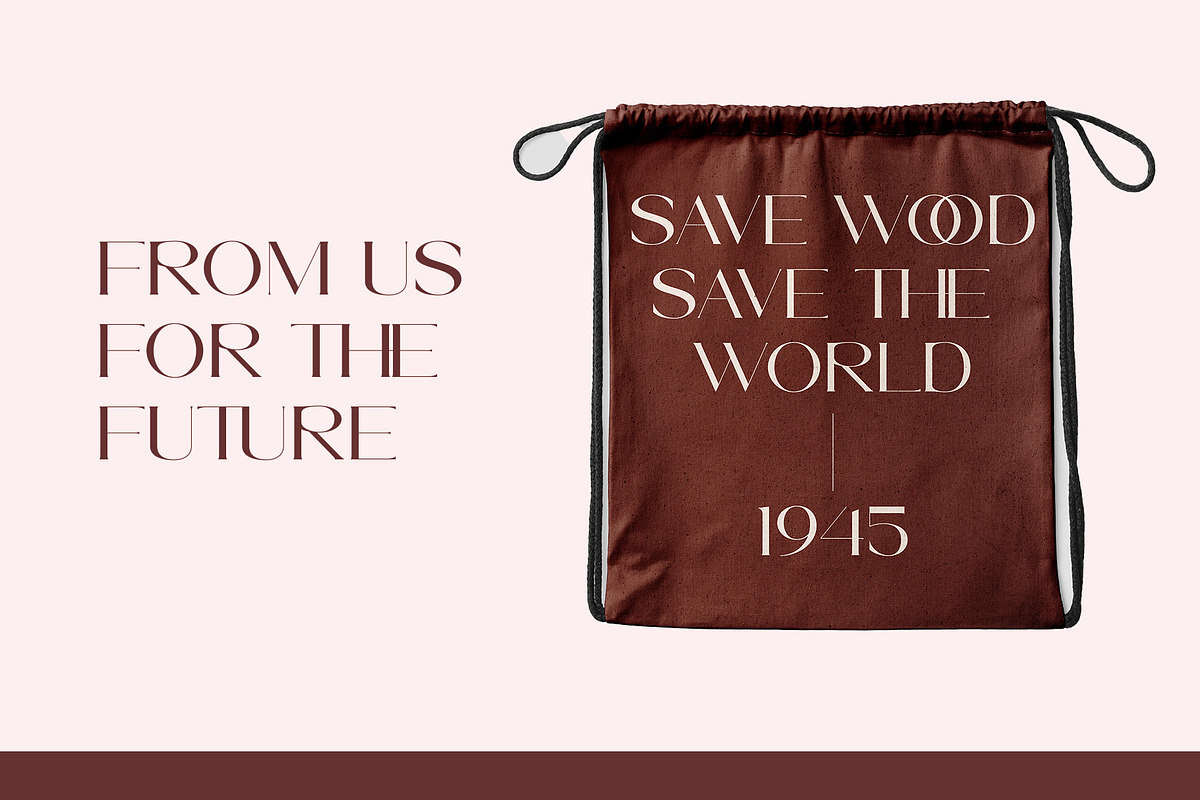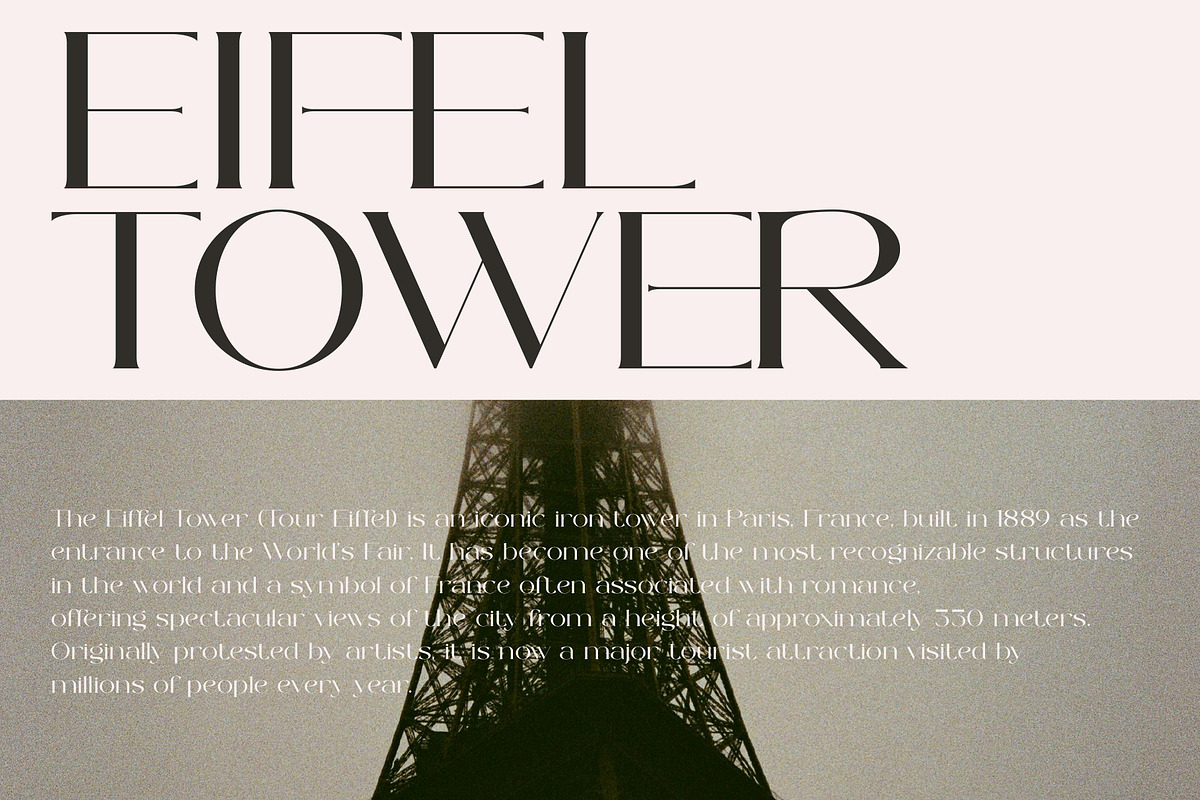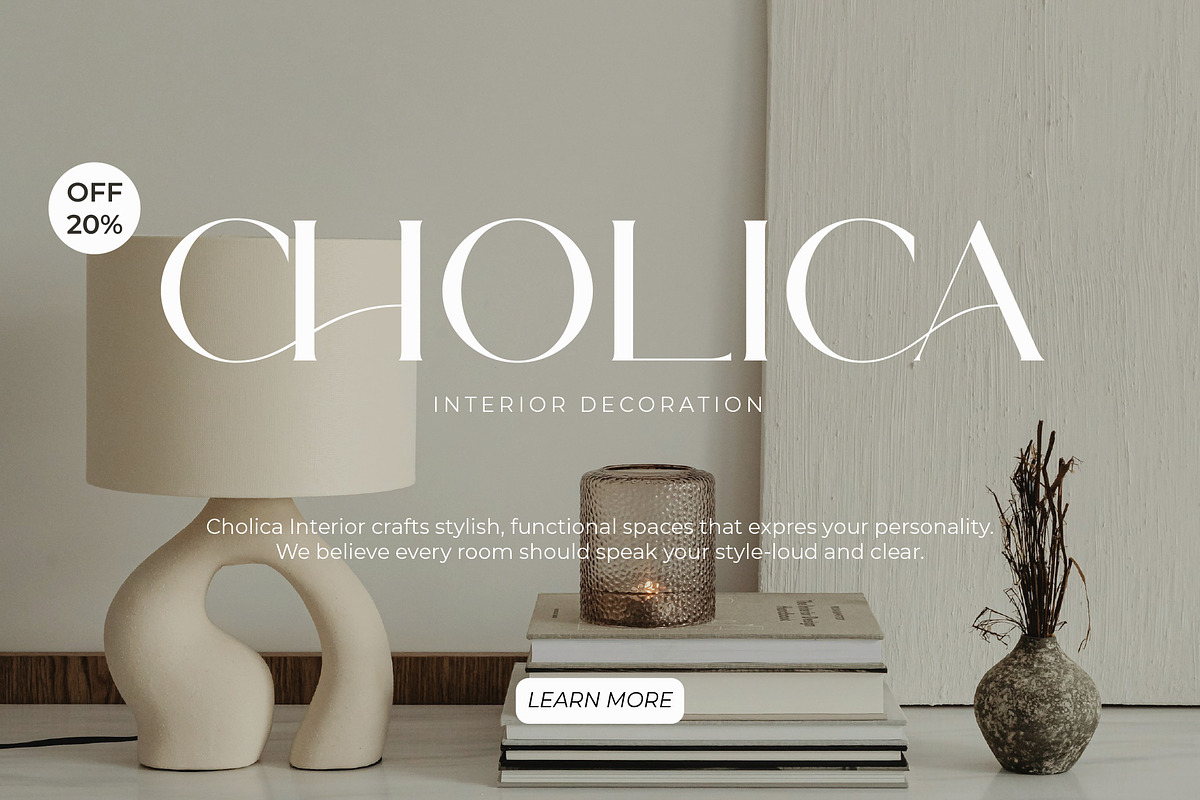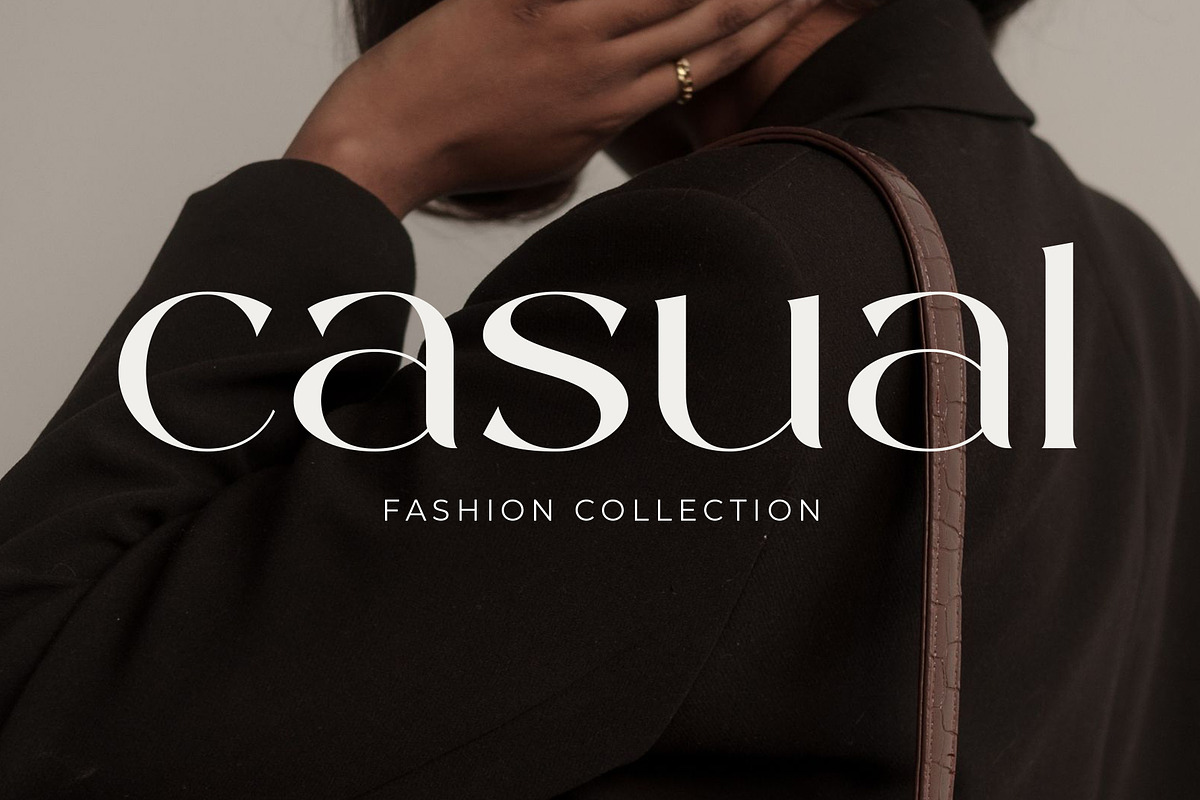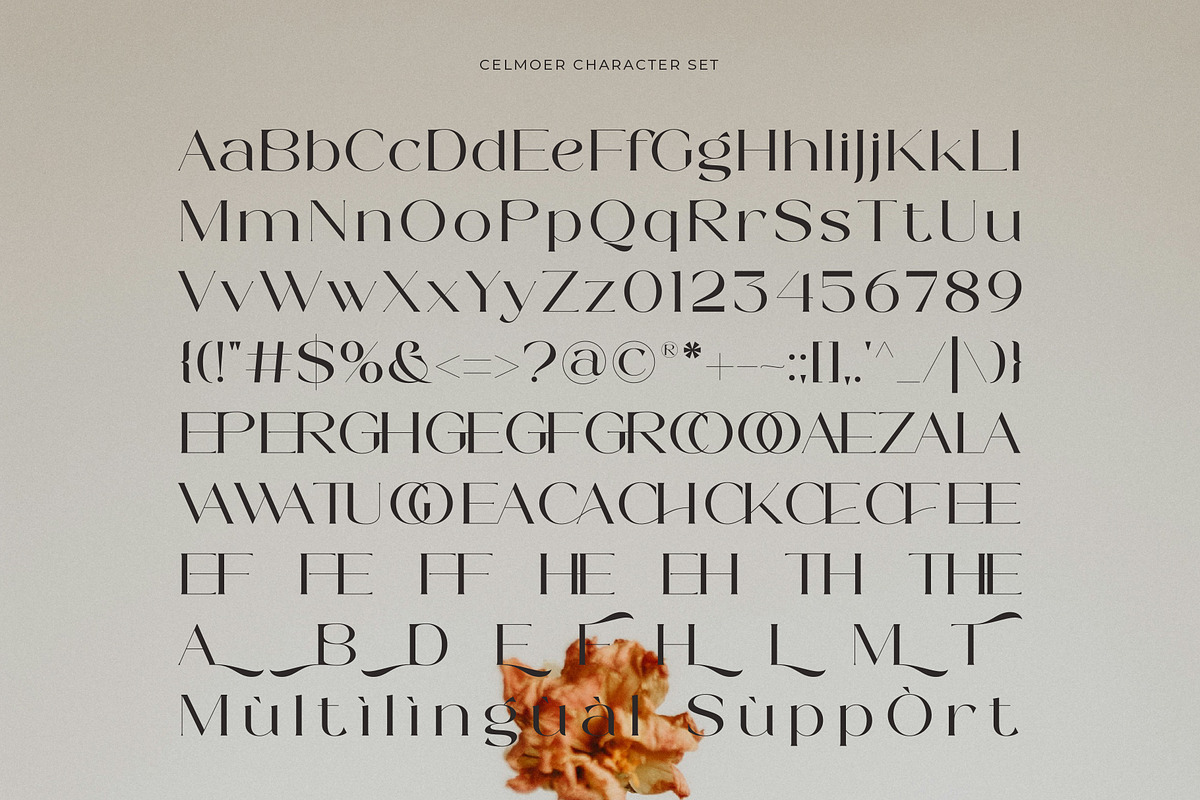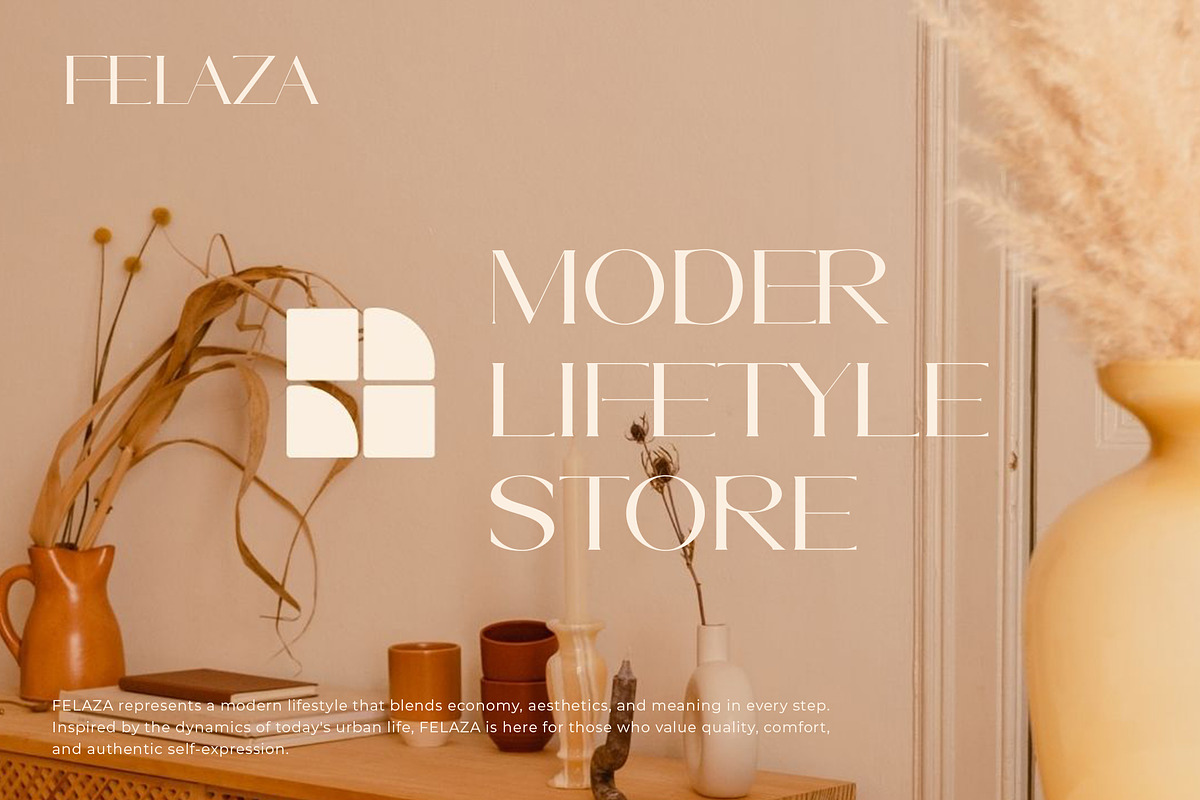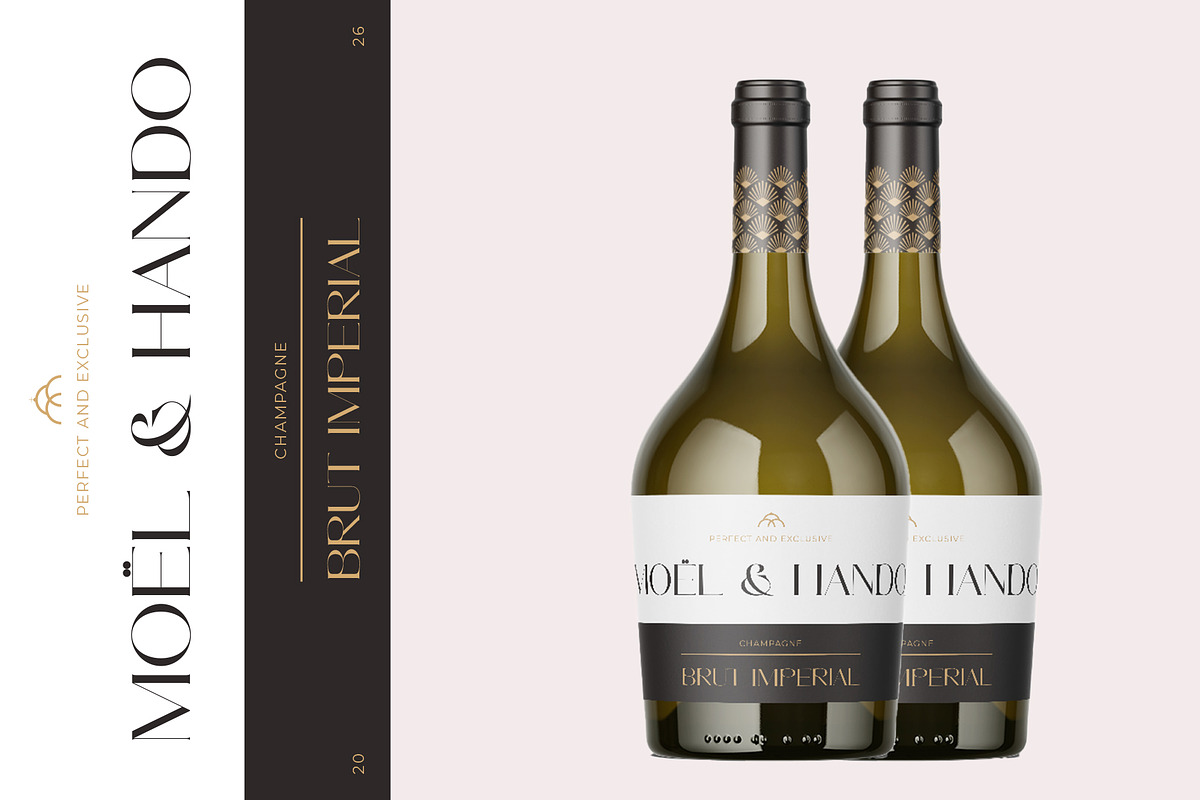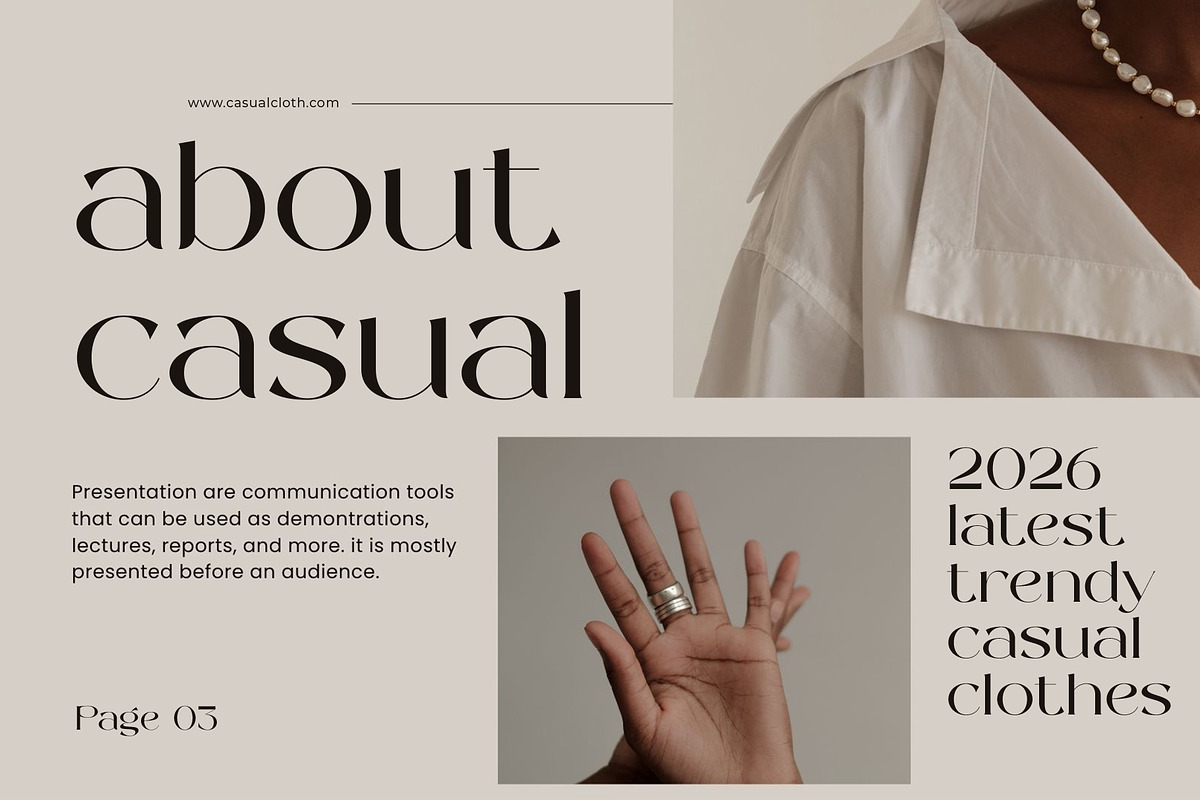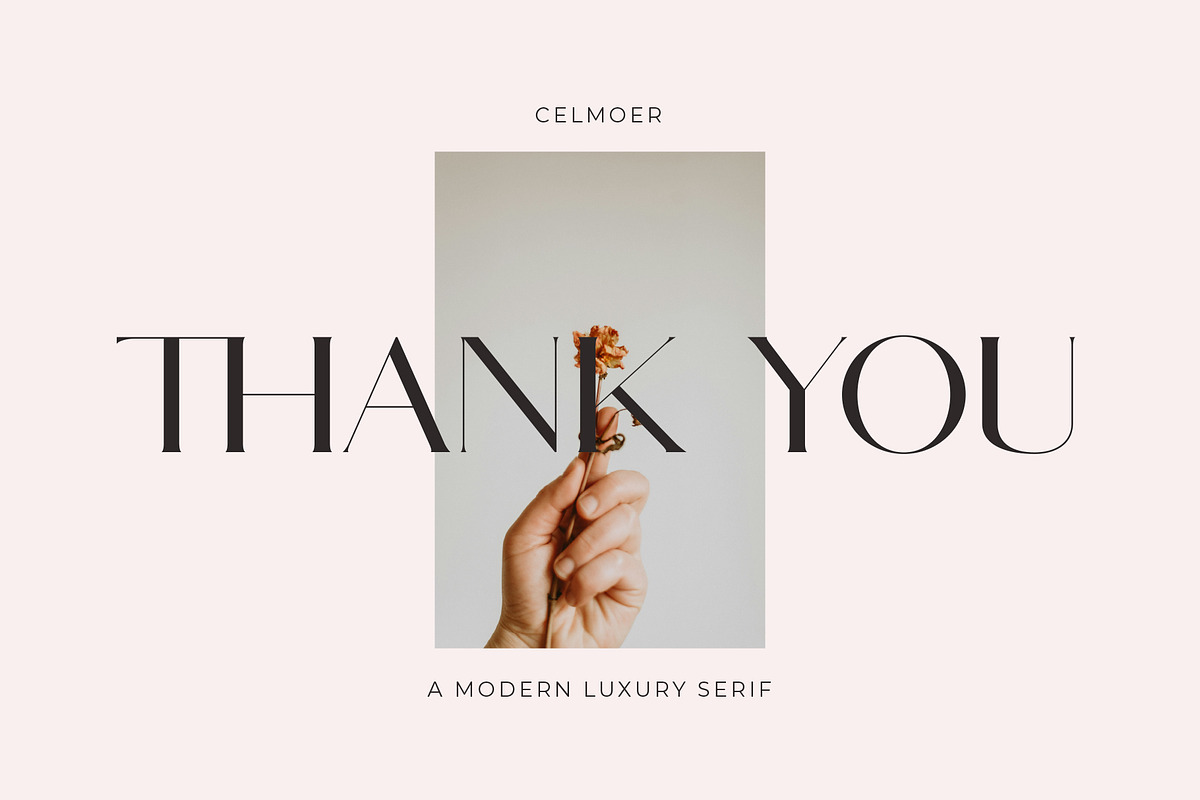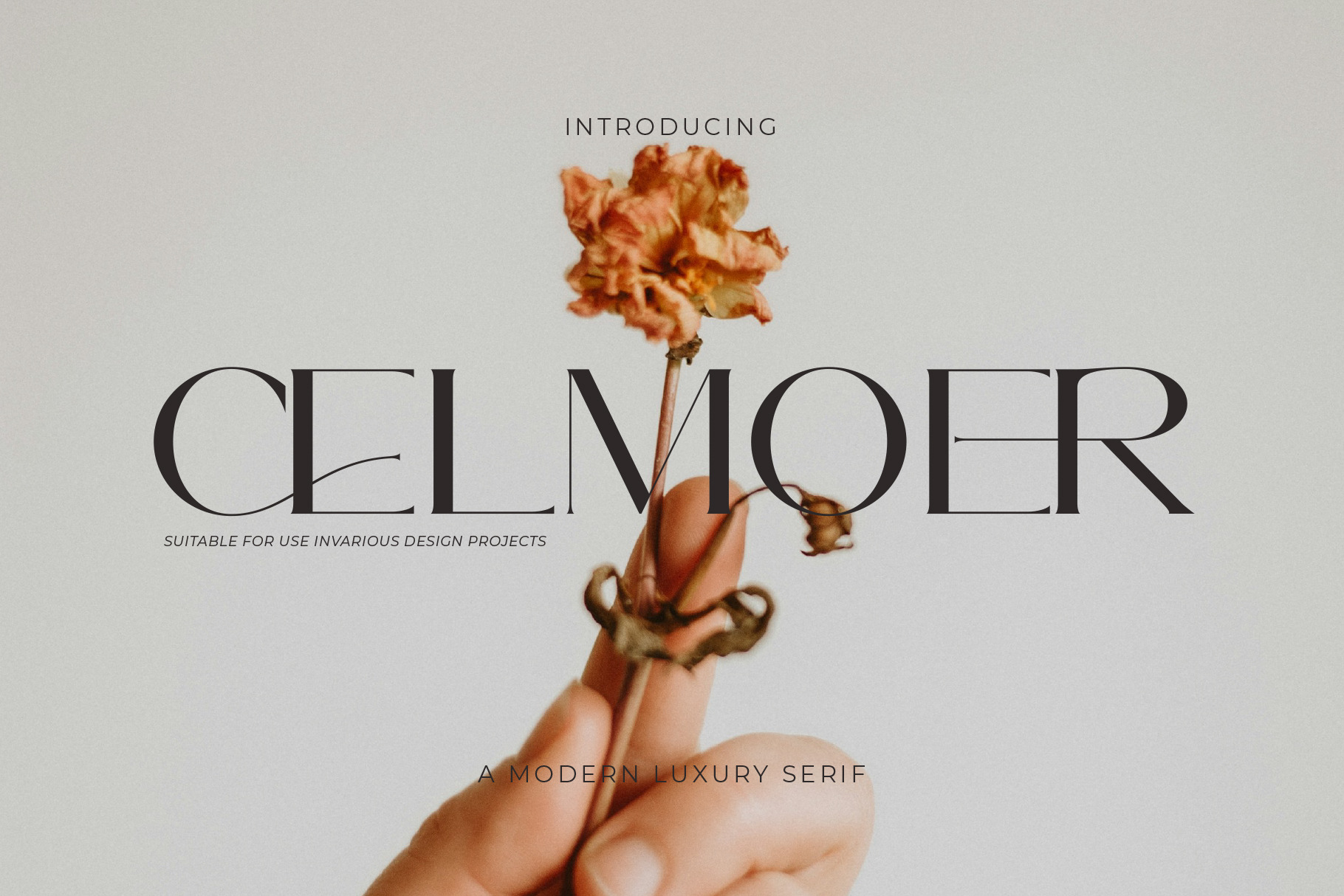
Celmoer - A Modern Luxury Serif Font
Introducing Celmoer the elegant, beautiful, and modern Serif. With its modern and minimalist look, Celmoer brings a luxurious, classy, and clean style to your projects such as websites, modern logos, brand identities, social media quotes, wedding stationery, magazines, and more!
Celmoer features unique and classy capital letters A to Z and also comes with unique alternates and ligatures making Celmoer a beautiful font that can be customized for various projects and jobs you want.
Celmoer is perfect for: logos, brands, wedding invitations, business cards, greeting cards, posters, magazines, social media, agenda prints, and websites.
- Uppercase and lowercase letters
- Multilingual Characters